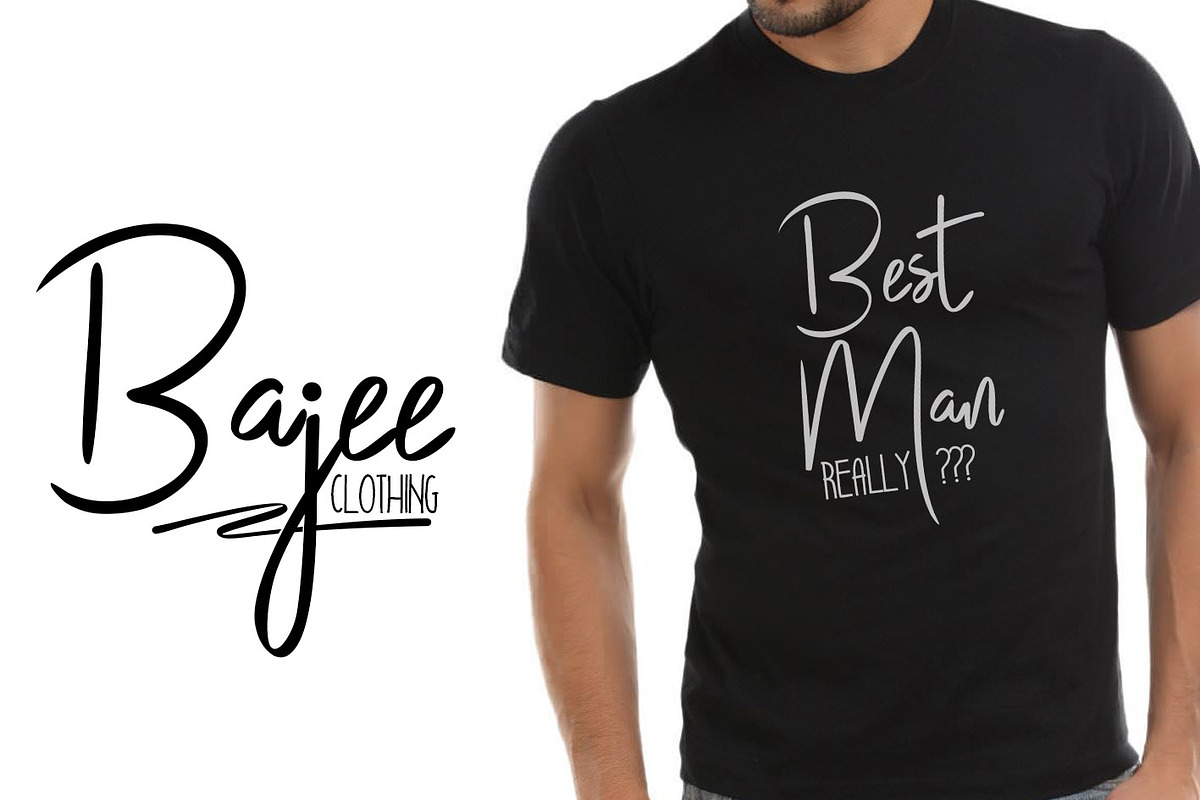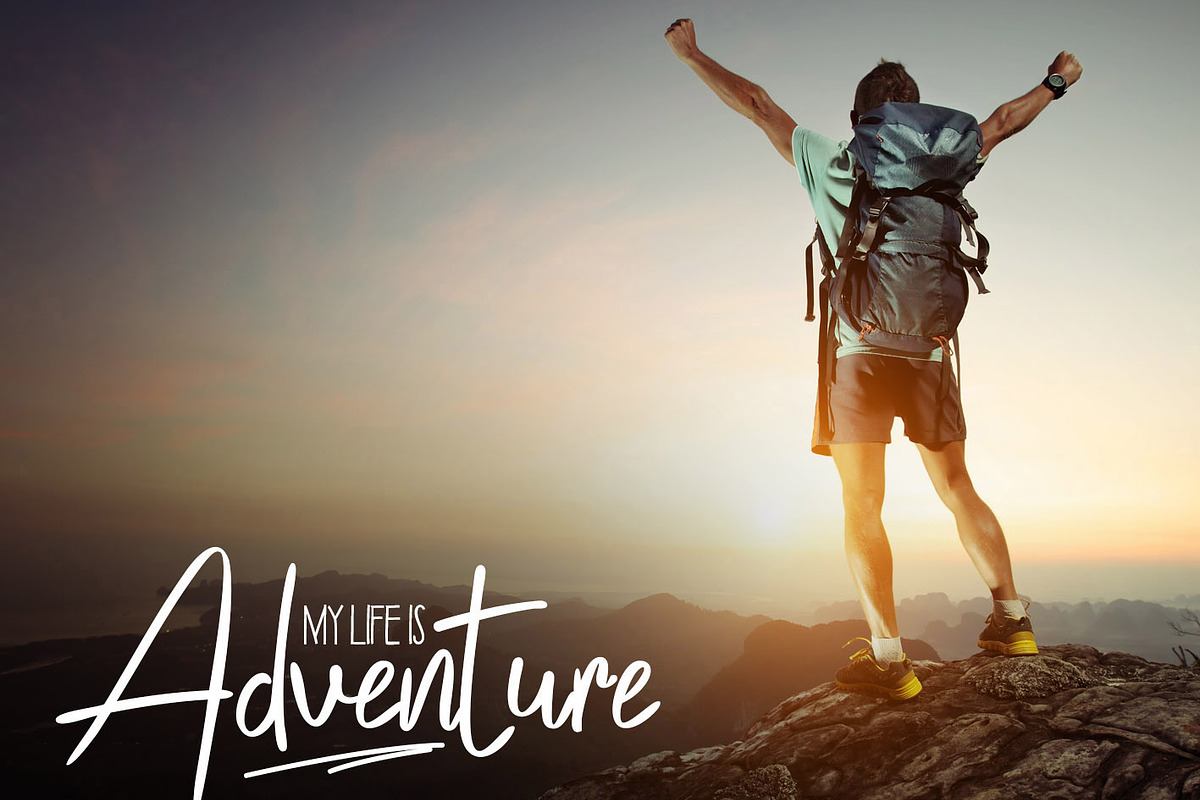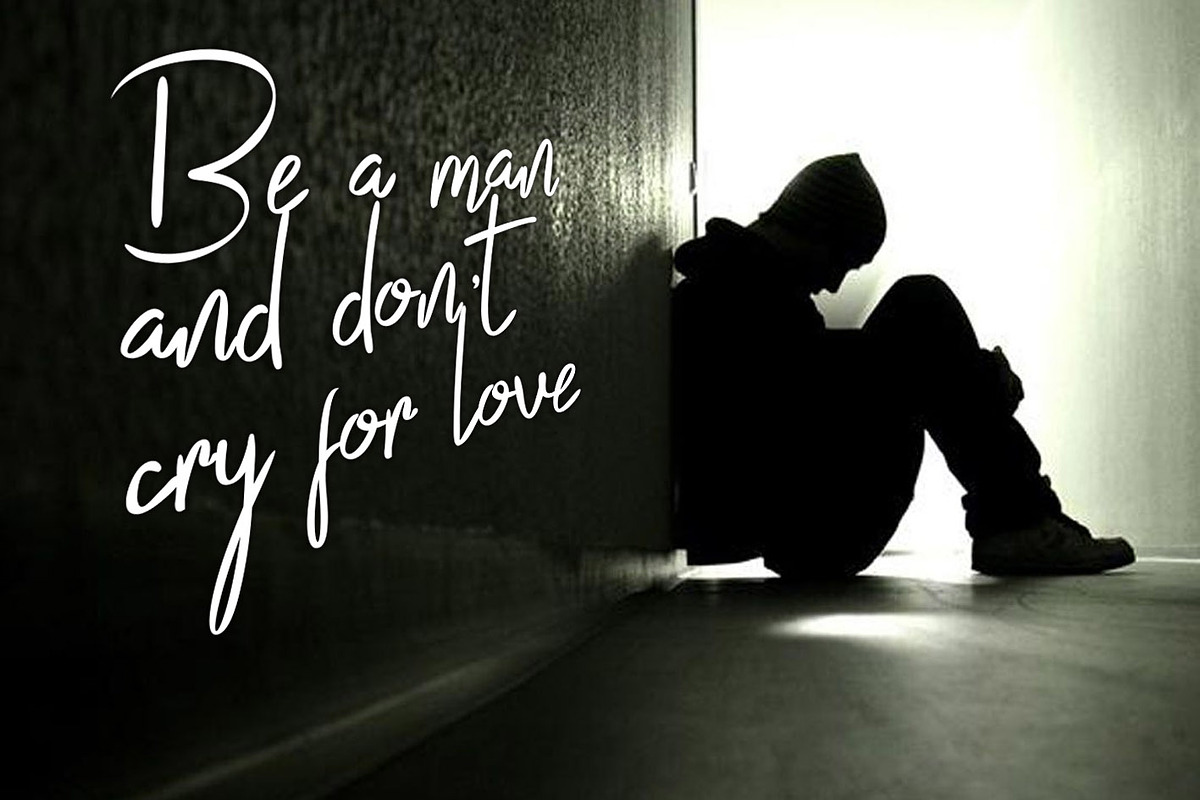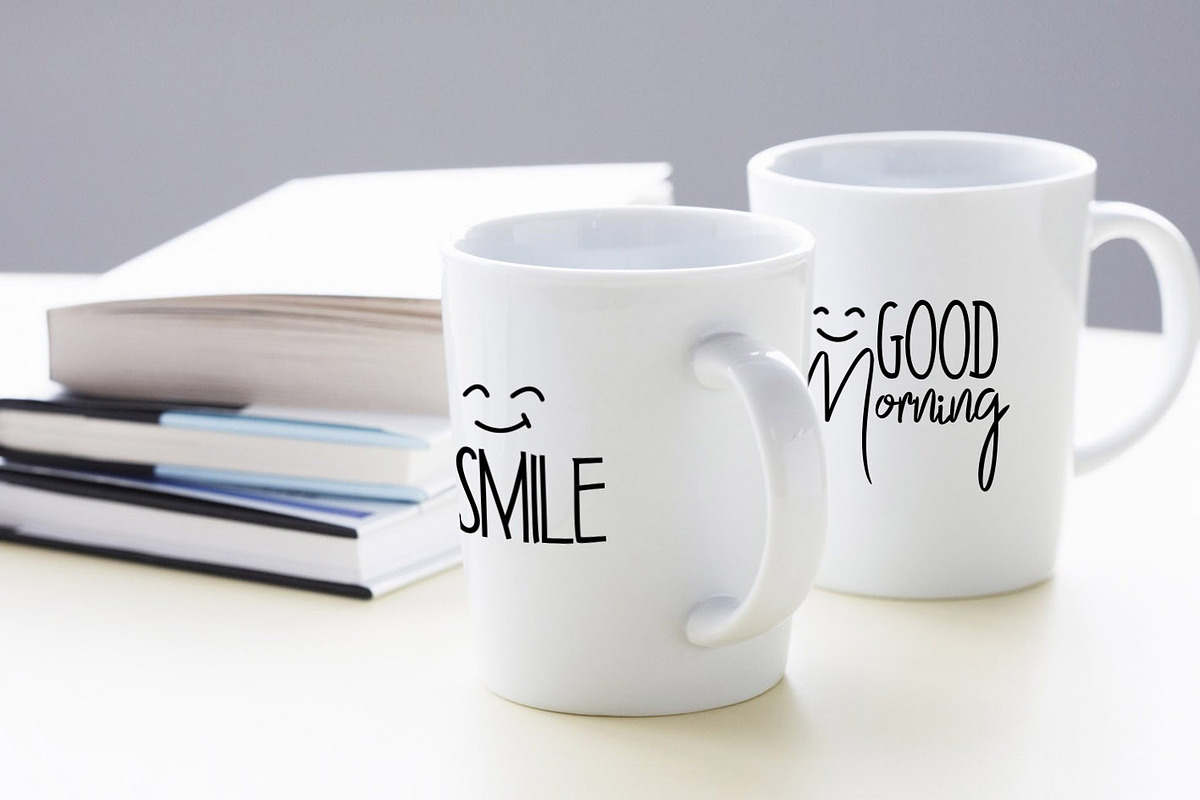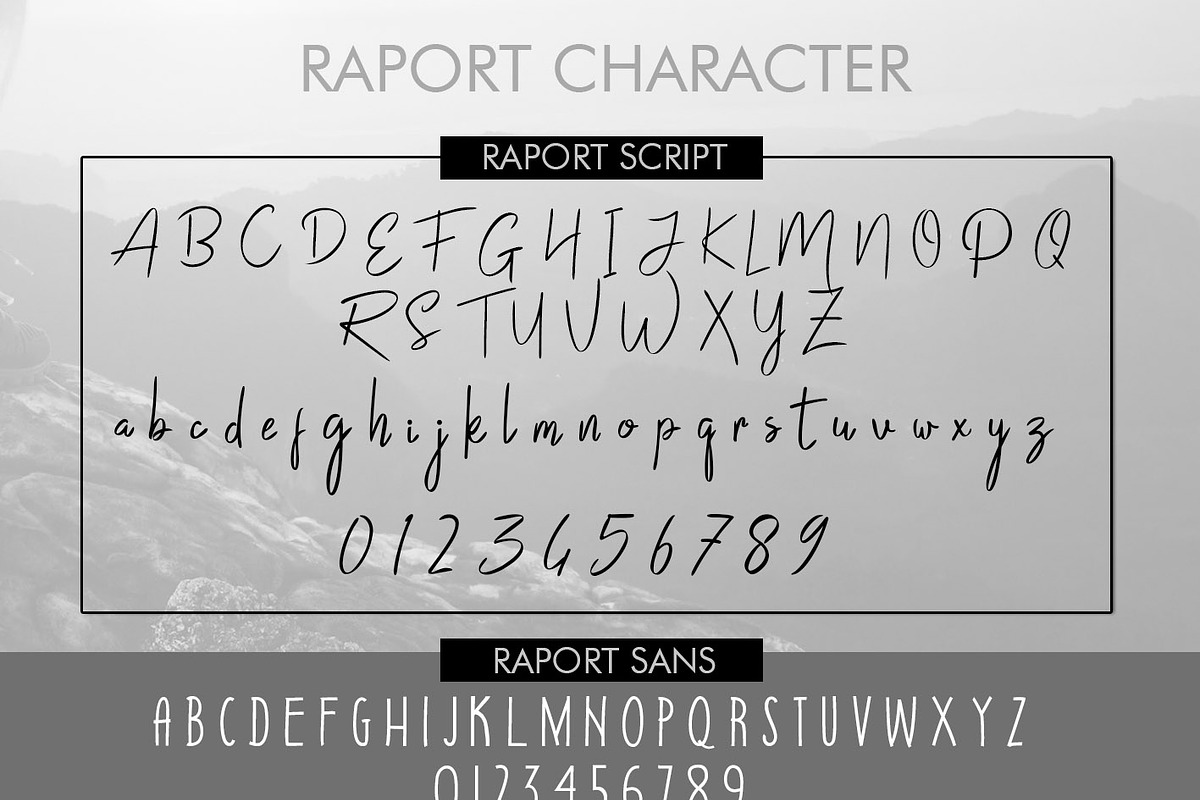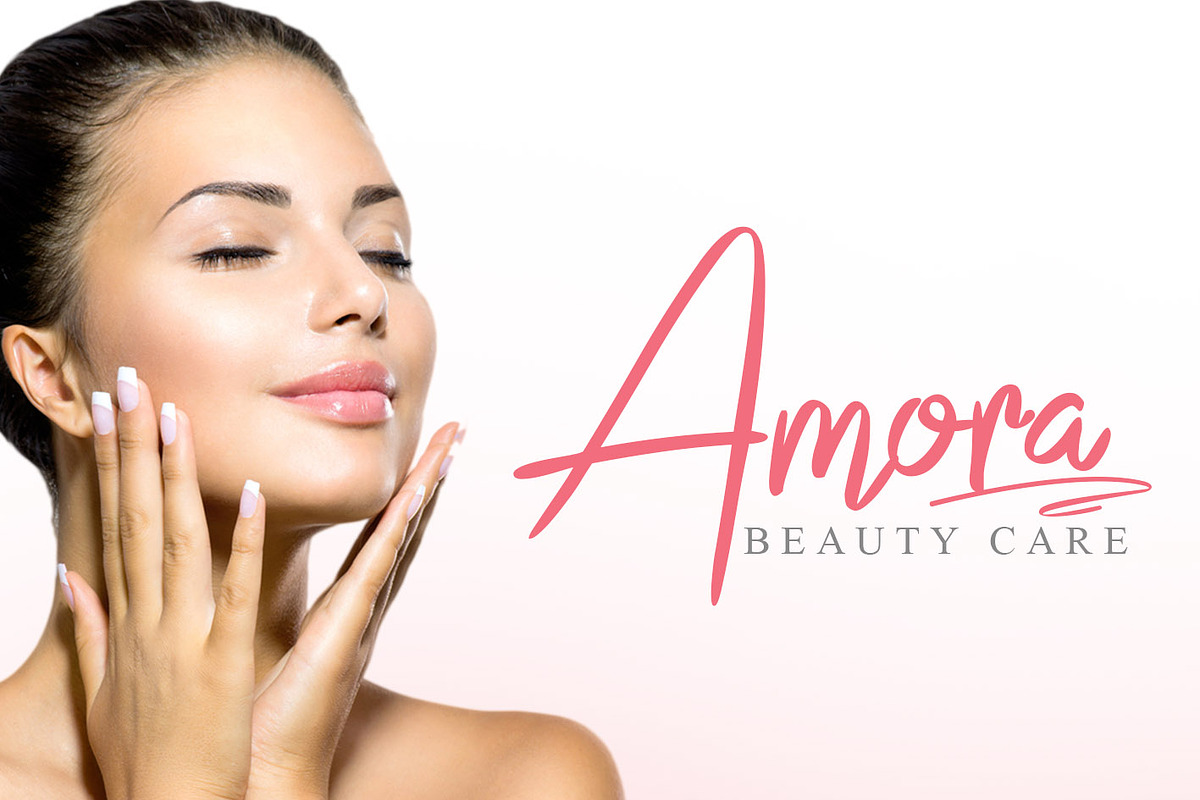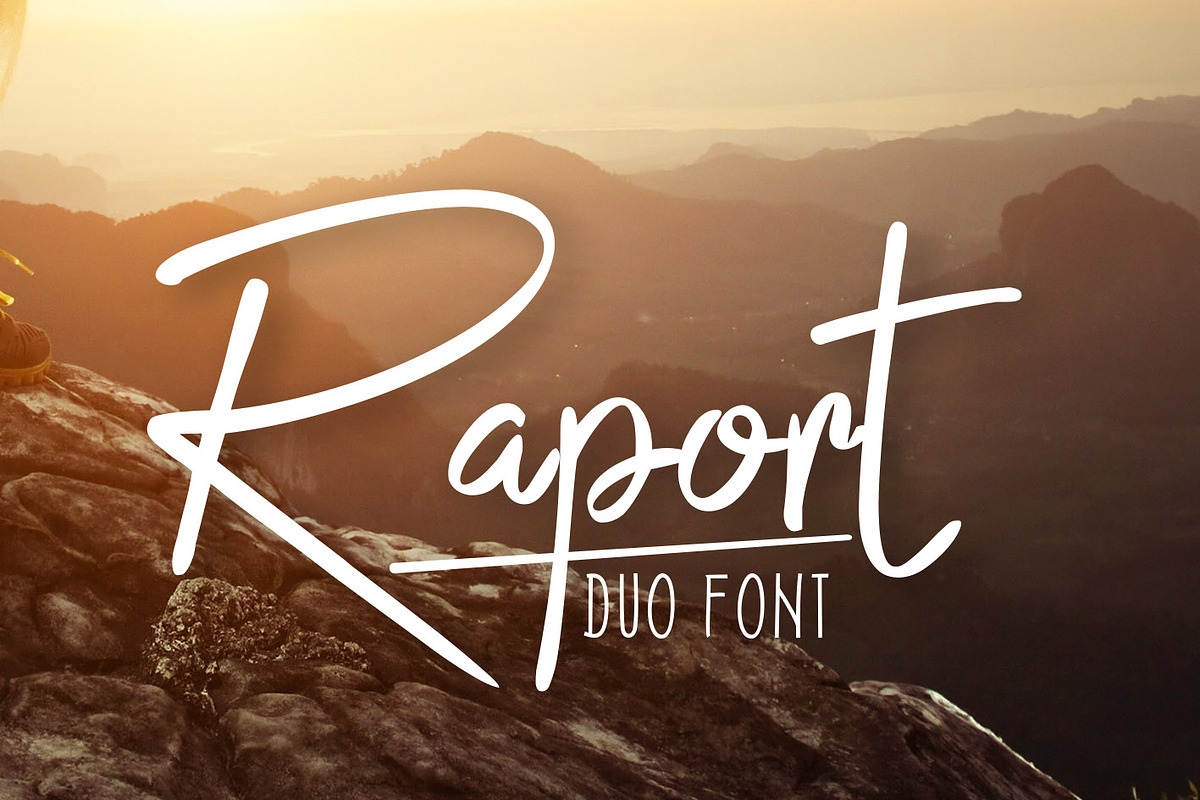
Raport Script (Duo Font + Extra)
Raport Script (Duo Font + Extra) by khurasan is a font selected for branding, posters, packaging, typography.
Raport Script (Duo Font + Extra) by khurasan fits naturally into Branding, posters, packaging, typography.